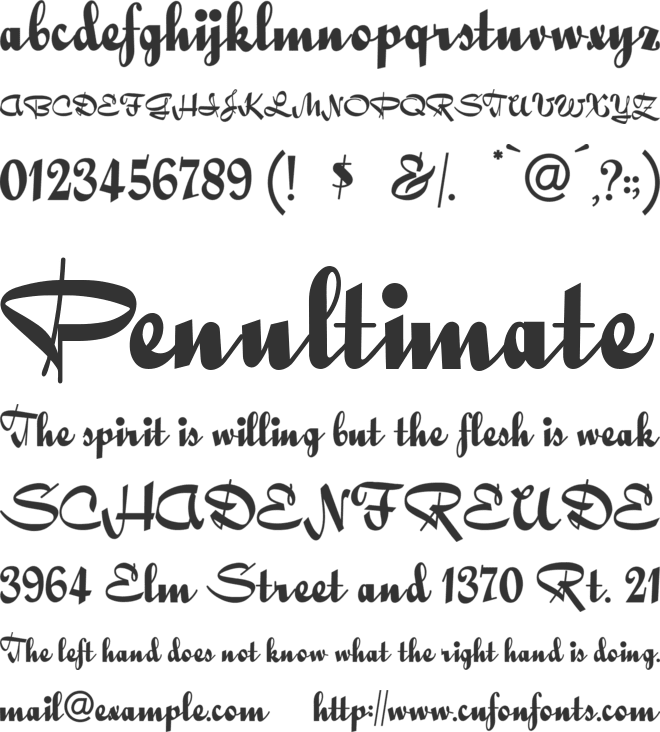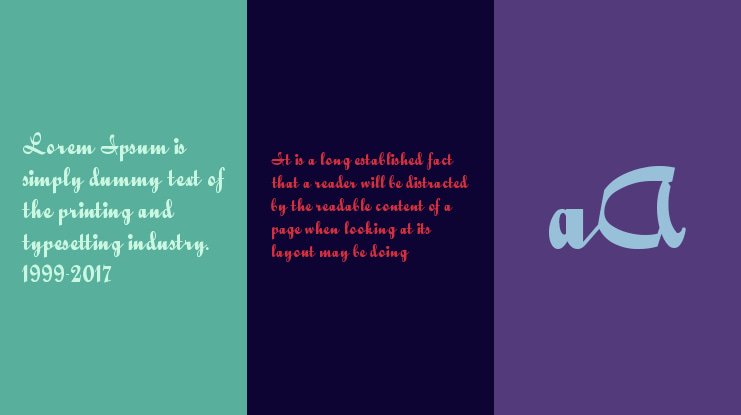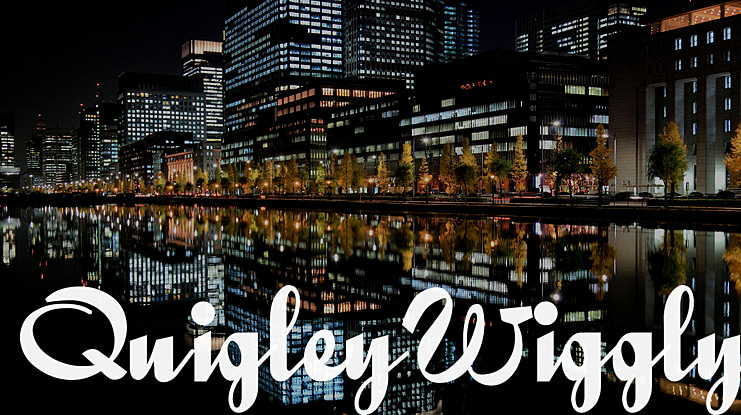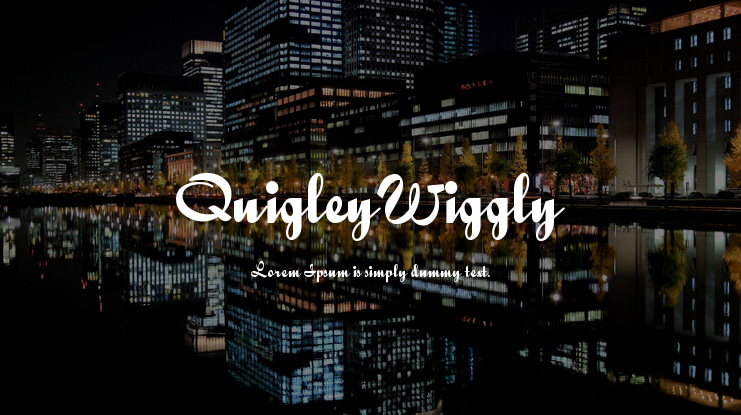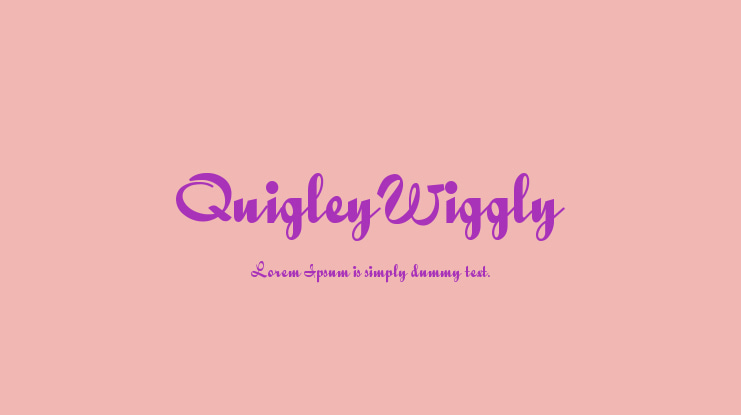
QuigleyWiggly Font
Believe it or not, this font first grabbed my attention when I saw it on a toothpick wrapper. I searched the web and found a font very similar, called Bailey. However, Bailey had several characters that were obviously “filled in,” equally obviously by someone who didn’t have a clue as to what the rules of the font were. Those lapses have been corrected in my version, which screams the Fifties. The name? Well, I didn’t have a font that began with the letter Q …